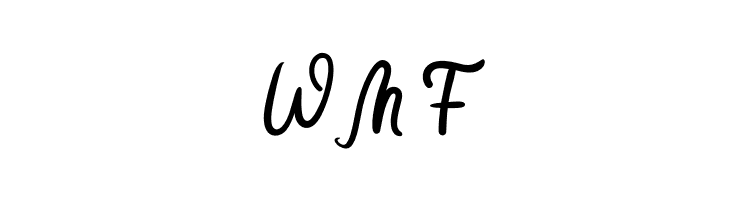
A modern, minimalist font with geometric shapes and a sleek appearance.
A bold, modern font with clean lines and consistent thickness.
A bold and outlined font with a modern, artistic style.
A bold, geometric font with a modern and distinctive style.
A bold, cursive font with smooth, flowing lines and a modern yet classic script style.
A bold, geometric font with a modern and structured design.
A bold, playful font with rounded, expressive letterforms.
A playful, hand-drawn font with bold, rounded characters.
A bold, retro-inspired font with rounded, bubbly characters.
A bold, rounded sans-serif font with smooth curves and a modern look.
A bold, playful font with rounded, chunky letterforms and minimal contrast.
A bold, geometric font with a modern and assertive style.
A bold, playful font with rounded edges and a cartoonish style.
A bold, flowing script font with a handwritten style.
A bold, italicized font with a sporty, futuristic aesthetic.
A modern, rounded sans-serif font with uniform strokes and high legibility.
A bold, geometric font with strong, uniform strokes and a modern yet vintage appeal.
A bold, playful script font with dynamic and flowing letterforms.
A classic, elegant script font with flowing, cursive letters.
A cursive, handwritten script font with elegant, flowing strokes.
A bold, decorative font with intricate details and ornate flourishes.
A playful, bone-themed font perfect for spooky or fun designs.
A bold, decorative font with playful, curly serifs and a whimsical style.
A bold, dynamic script font with flowing, cursive letterforms.
A bold, expressive script font with dynamic curves and modern style.
A bold, modern sans-serif font with clean lines and uniform strokes.
A lively script font with fluid, connected strokes and a handwritten feel.
A bold, angular font with a modern, geometric style.
A bold, playful font with rounded strokes and a dynamic slant.
A playful, bold, and hand-drawn font with rounded edges and a whimsical style.
A tall, narrow font with elongated characters, offering a modern and elegant look.
A bold, graffiti-style font with three-dimensional, dynamic letters.
A playful, cursive font with flowing strokes and a dynamic, energetic style.